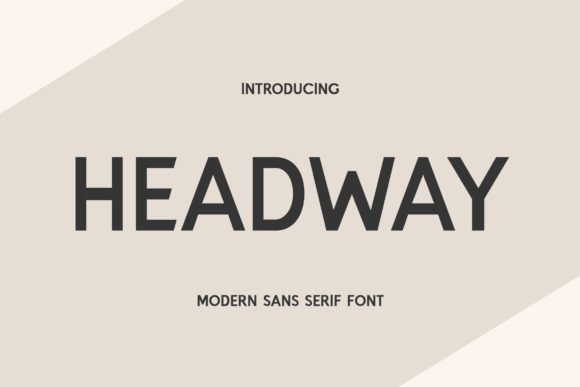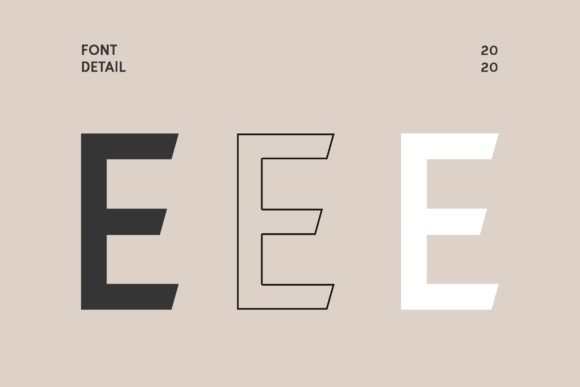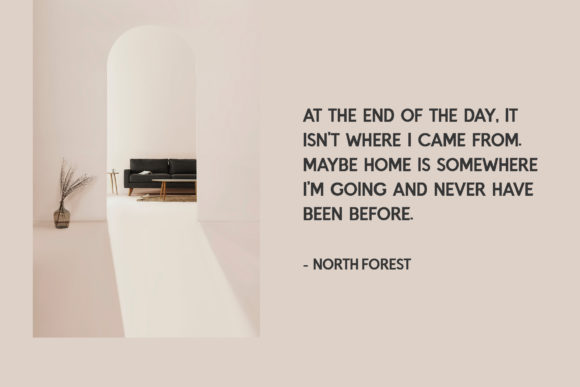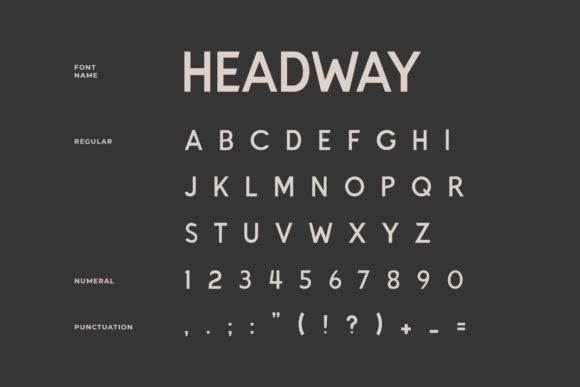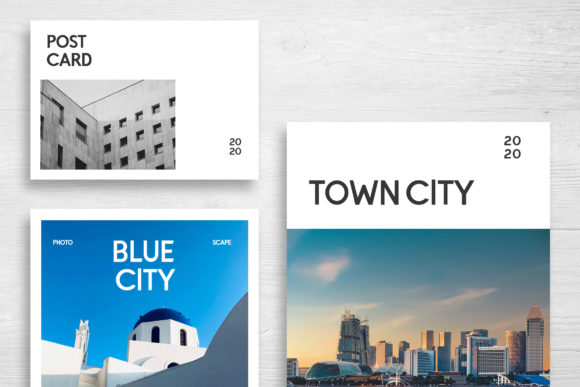
The Perfect Match for Your Next Design
Have you ever stared at a blank page, wondering which font will bring your creative vision to life? It’s a feeling we’ve all been through. The search for the perfect font can be overwhelming, but what if I told you there’s one that’s about to become your go-to partner in design?
Meet the Headway Font, a modern and bold sans serif font that’s as versatile as it is striking. Its minimal and simple style makes it incredibly fitting to a large pool of designs, from sleek logos to captivating posters. The Headway Font is not just another font, it’s a tool that can elevate your designs and make them truly unforgettable.
Whether you’re a seasoned designer or just starting out, the Headway Font is a valuable addition to your creative arsenal. Its simplicity and boldness make it a chameleon that can adapt to any design style, giving you the freedom to push the boundaries of your creativity.
Headway Font Key Features
- Font Size: Headway Font comes in 3 different font sizes: Headway Regular (Regular), Headway Bold (Bold), and Headway Italic (Italic), each with a unique character set.
- Unique Characteristics: Headway Font features a unique blend of modern and classic design elements, with a focus on legibility and readability.
- Font Width: Headway Font is a variable-width font, allowing for a high degree of flexibility and customization in digital and print applications.
Review of Headway Font
As a designer, I’ve had the chance to work with a wide range of fonts, and I must say that Headway Font is a solid addition to any typography collection. ✨ The font’s clean and modern aesthetic makes it perfect for digital applications, from websites to mobile apps. The font’s simplicity and lack of clutter make it highly readable, even at smaller font sizes.
Some of the key strengths of Headway Font include:
- ✨ High legibility, making it perfect for body text
- ✨ Versatility, suitable for a wide range of applications
- ✨ Modern and sleek design
However, like any font, Headway Font has its limitations. ⚠️ One of the main drawbacks is its lack of expressiveness. The font’s simplicity can sometimes make it feel a bit too generic, lacking the personality and character that some designers may be looking for. Additionally, the font’s limited font weights and styles may limit its use in certain applications.
Overall, I would give Headway Font 4 out of 5 stars. While it may not be the most exciting font, it is a reliable and versatile choice that can be used in a wide range of applications. Its high legibility and modern design make it a solid addition to any typography collection.
Headway Font is ideal for:
- Creative projects, such as posters and flyers.
- Branding materials, such as logos and business cards.
- Web design, particularly for modern and minimalist websites.